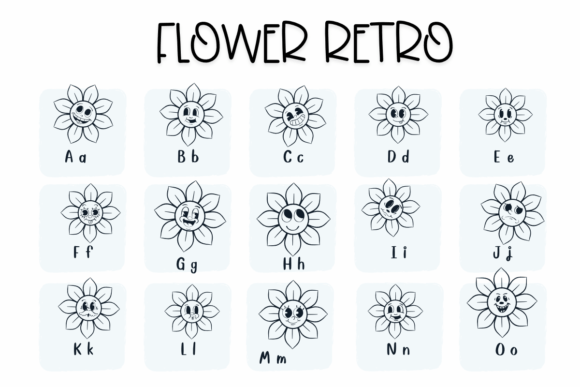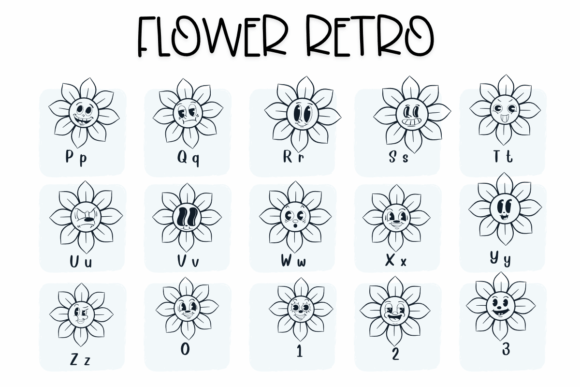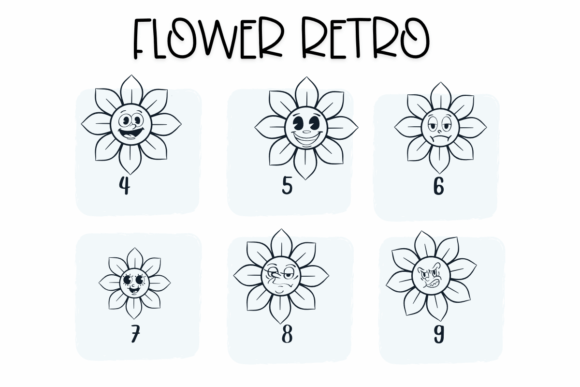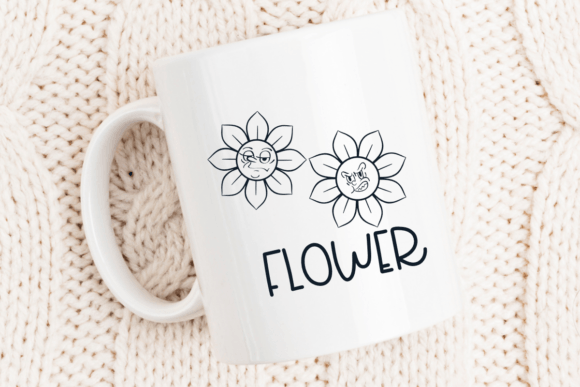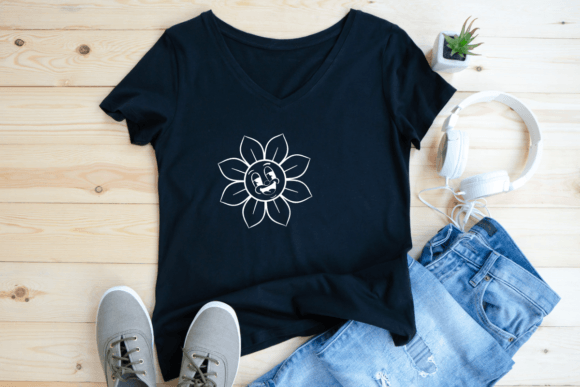
Introducing Flower Retro Font: Elevate Your Creative Projects with a Touch of Vintage Charm
Are you a designer, crafter, or DIY enthusiast looking for a unique and stylish font to add a personal touch to your projects? Look no further than Flower Retro Font, a beautiful dingbats font with a sketched style that’s perfect for a wide range of creative endeavors. In this article, we’ll explore the features and benefits of Flower Retro Font, and show you how it can enhance your wedding invitations, DIY projects, crafts, decorations, logos, and more.
What is Flower Retro Font?
Flower Retro Font is a distinctive dingbats font that features a charming, hand-sketched style. The font is made up of intricate illustrations of flowers, leaves, and other decorative elements, which can be used to add a touch of elegance and sophistication to your designs. With its unique and eye-catching style, Flower Retro Font is sure to make your projects stand out from the crowd.
Key Features of Flower Retro Font
- Unique Sketched Style: Flower Retro Font features a beautiful, hand-sketched style that’s perfect for adding a personal touch to your designs.
- Dingbats Font: The font is made up of decorative illustrations, making it easy to use and customize.
- Versatile: Flower Retro Font can be used for a wide range of creative projects, from wedding invitations to DIY crafts and decorations.
- Elegant and Sophisticated: The font’s intricate illustrations and classic style make it perfect for adding a touch of elegance and sophistication to your designs.
Uses for Flower Retro Font
Flower Retro Font is an incredibly versatile font that can be used for a wide range of creative projects. Here are just a few ideas to get you started:
- Wedding Invitations: Add a touch of elegance and sophistication to your wedding invitations with Flower Retro Font.
- DIY Crafts: Use the font to create beautiful, one-of-a-kind decorations, cards, and gifts.
- Decorations: Add a personal touch to your home decor with custom signs, banners, and other decorative items featuring Flower Retro Font.
- Logos and Branding: Use the font to create a unique and eye-catching logo or brand identity.
Tips for Using Flower Retro Font
Here are a few tips for getting the most out of Flower Retro Font:
- Experiment with Different Sizes and Colors: Don’t be afraid to try out different sizes and colors to see what works best for your project.
- Combine with Other Fonts: Pair Flower Retro Font with other fonts to create a unique and eye-catching design.
- Use for Headers and Titles: The font’s decorative style makes it perfect for use in headers and titles.
Flower Retro Font is a beautiful and versatile dingbats font that’s perfect for designers, crafters, and DIY enthusiasts. With its unique sketched style and elegant illustrations, it’s sure to add a touch of sophistication and elegance to your creative projects. Whether you’re working on a wedding invitation, DIY craft, or logo design, Flower Retro Font is a great choice. So why wait? Download Flower Retro Font today and start creating your own unique and eye-catching designs!